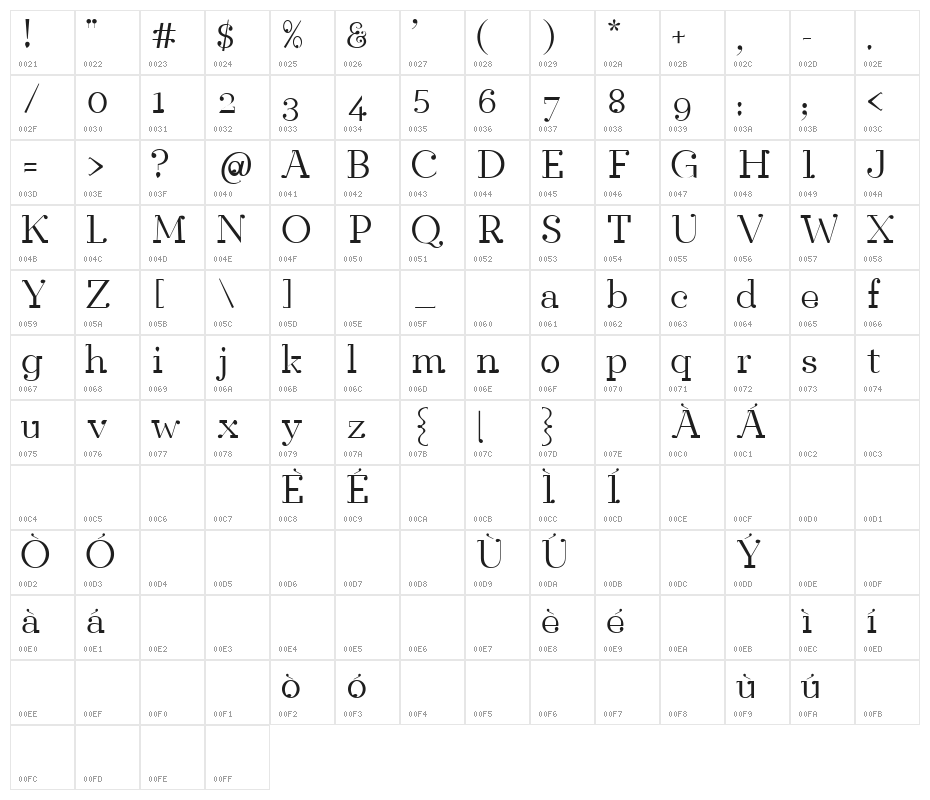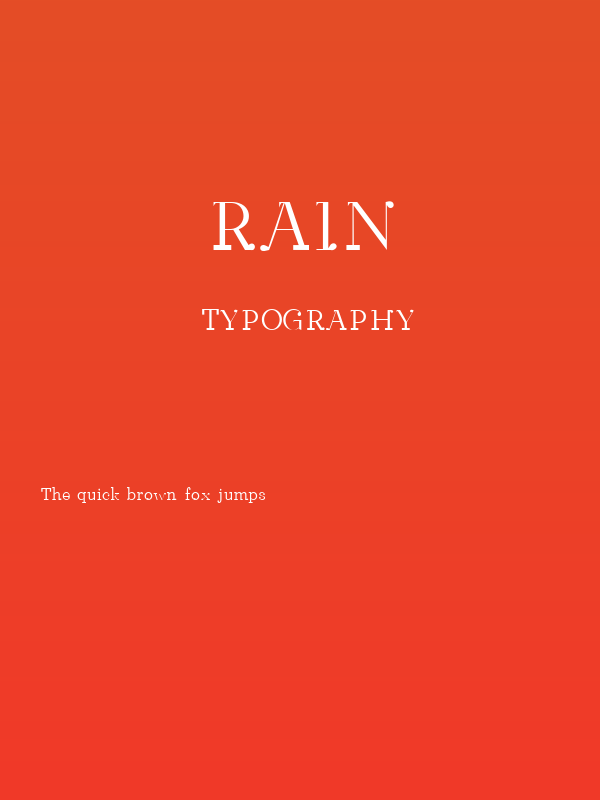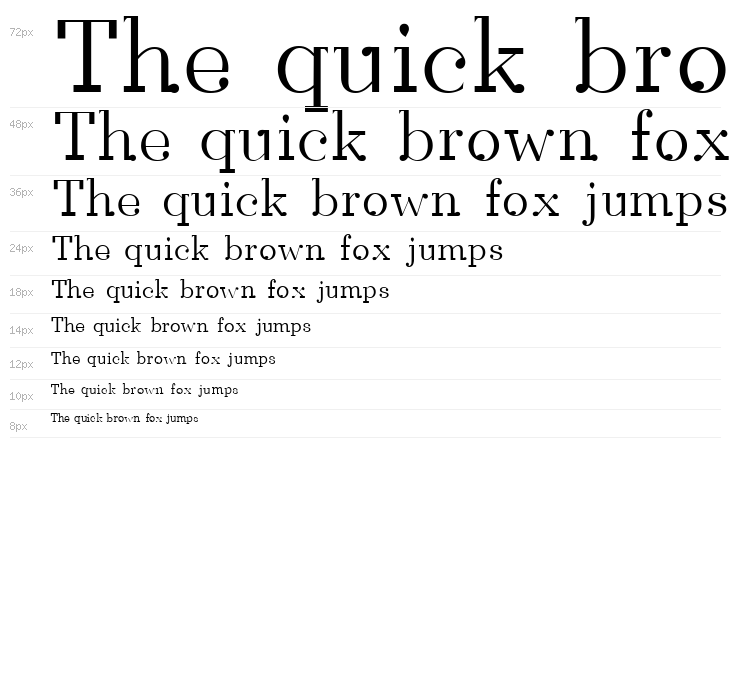
Rain Font
Rain Description
This font features a classic serif style with elegant, rounded terminals and a refined appearance. The uppercase letters are bold and stately, while the lowercase letters maintain a smooth and flowing form. The numerals are distinct and easy to read, with a consistent weight that complements the overall design. Special characters are crafted with attention to detail, adding to the font's versatility. The font's high contrast between thick and thin strokes gives it a sophisticated and timeless look, making it suitable for a variety of applications.
| Proposed Projects | Ideal for editorial design, book covers, branding, and elegant invitations. |